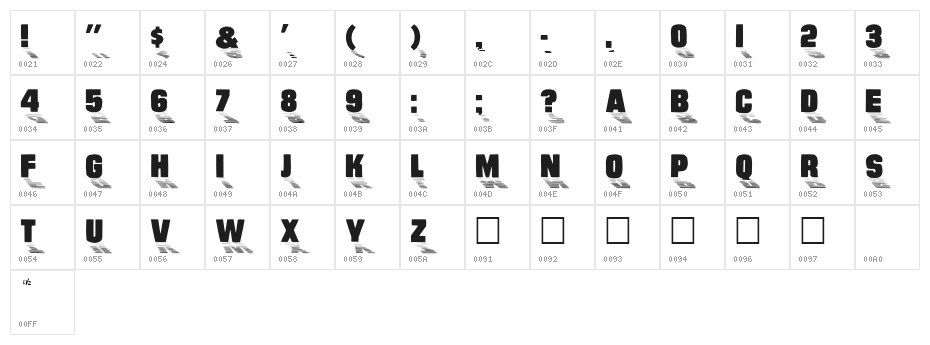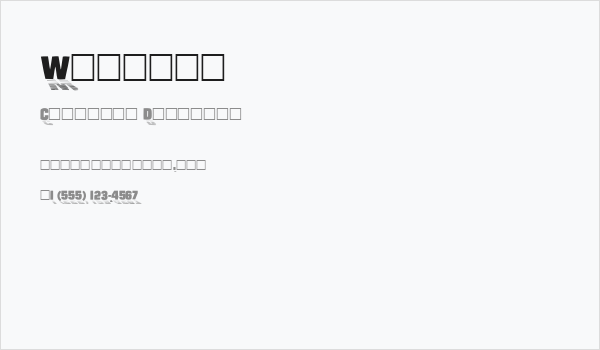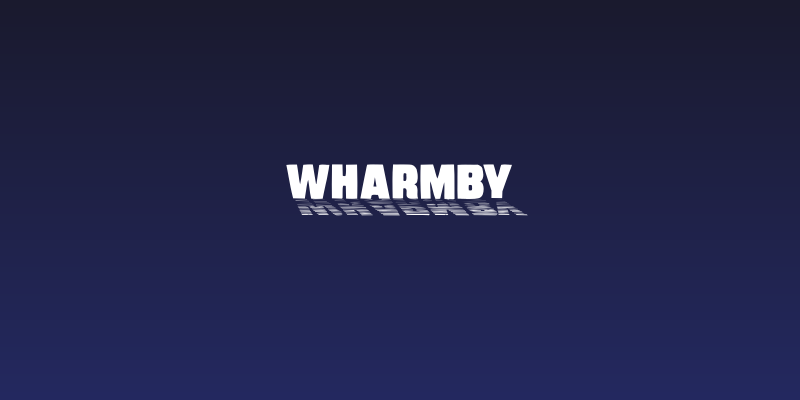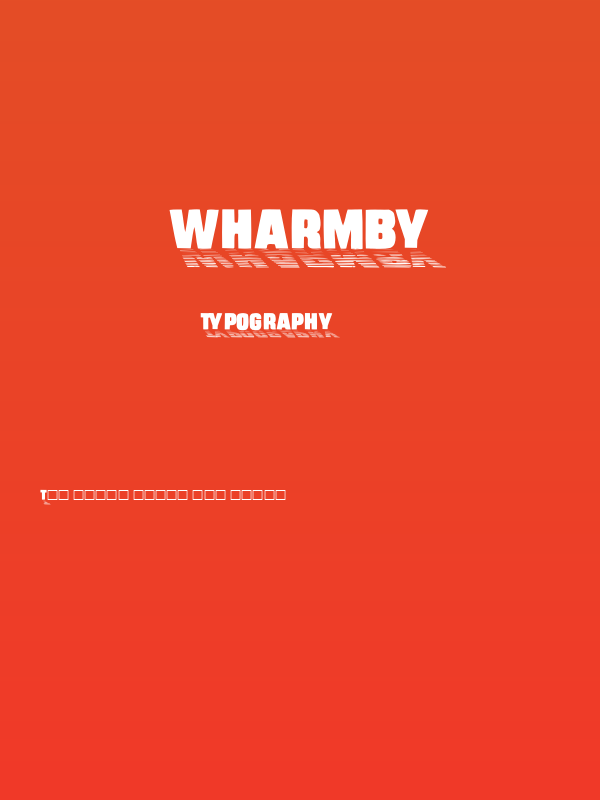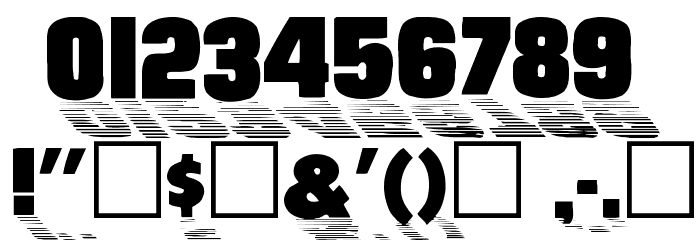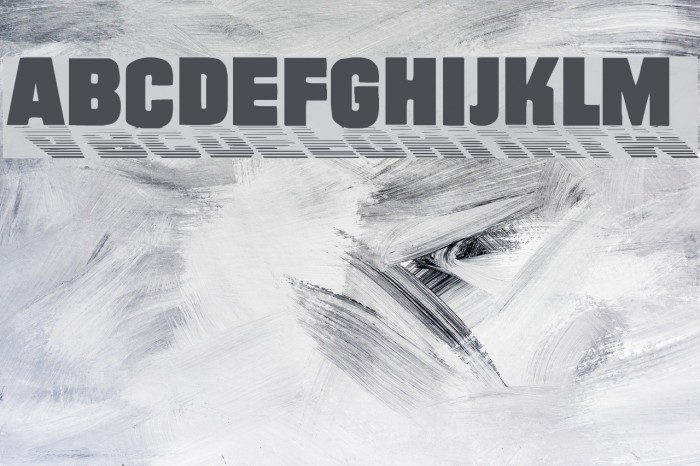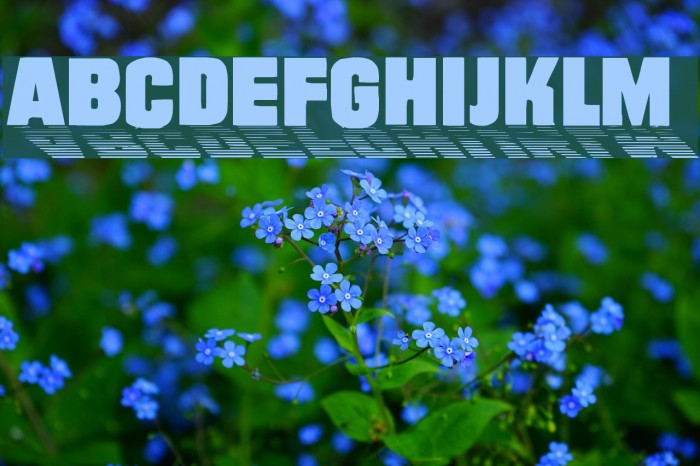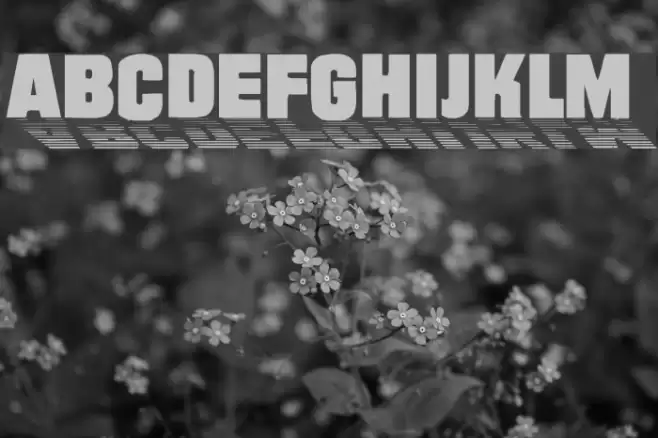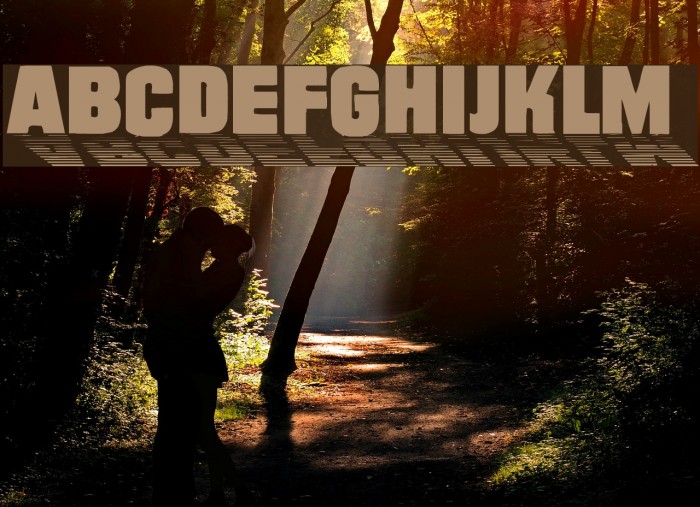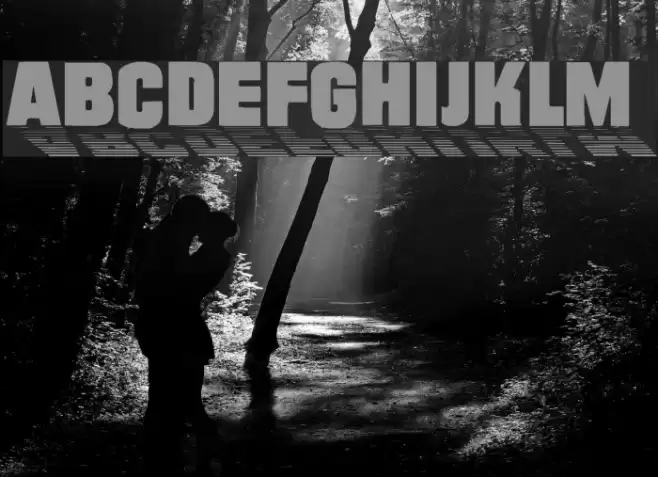
Wharmby Font
Wharmby Description
This bold, decorative font features a strong, impactful design with a unique shadow effect that gives it a sense of depth and movement. The uppercase letters are prominent and assertive, making them ideal for attention-grabbing headlines or titles. The numbers and special characters maintain the same bold style, ensuring consistency across different uses. The font's distinct shadowing adds a dynamic and modern twist, making it suitable for projects that require a bold statement. Its overall style is both modern and decorative, perfect for creative and artistic applications.
| Overall Style | Modern, Decorative |
| Proposed Projects | Ideal for posters, logos, headlines, and any design needing a bold, eye-catching typeface. |